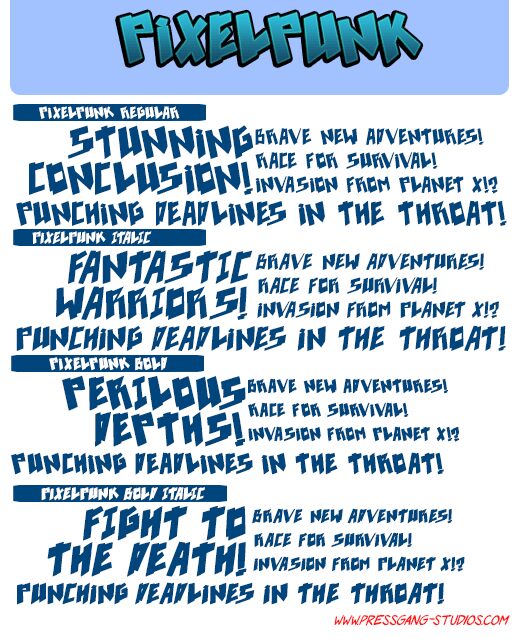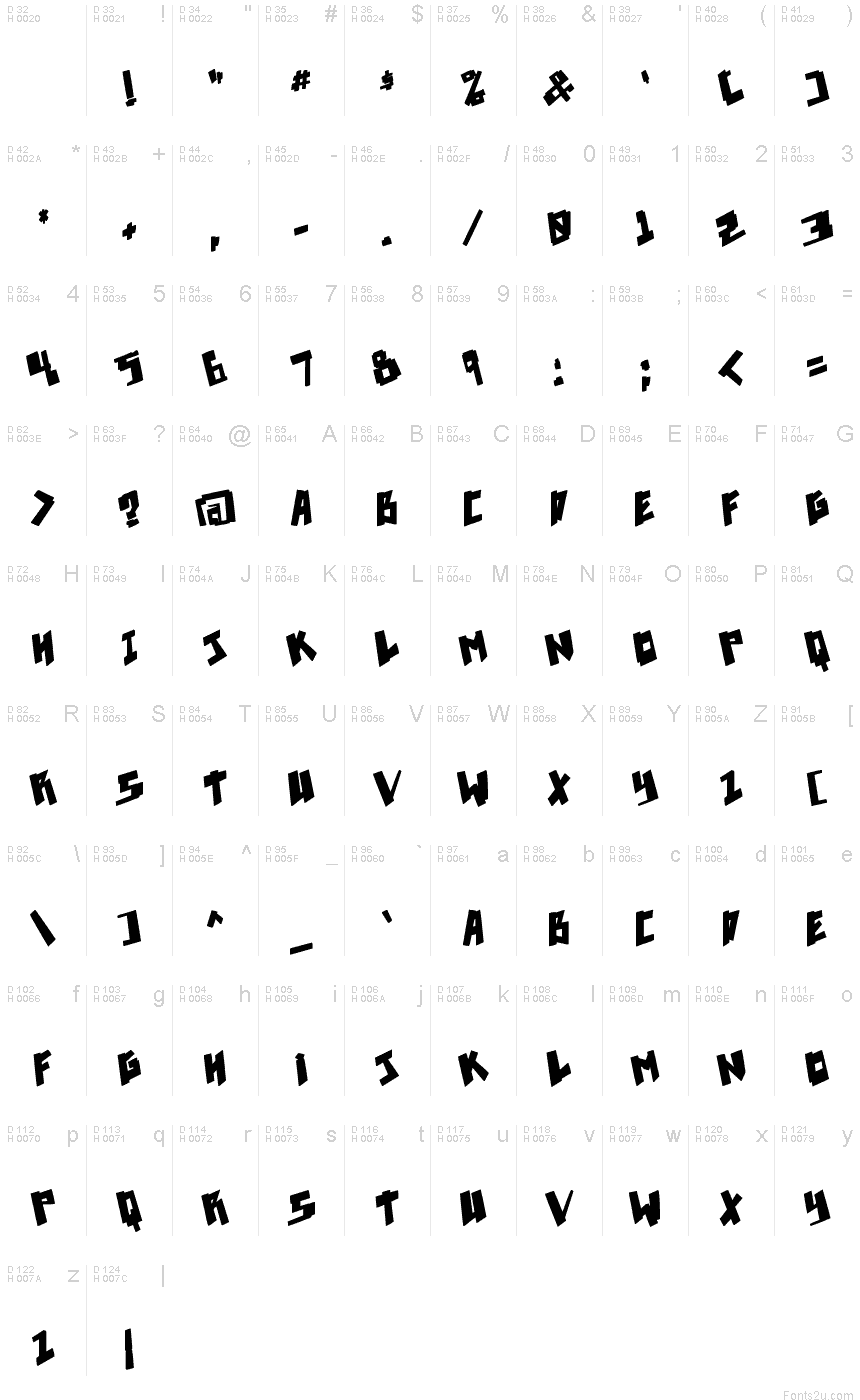
pixelpunk Bold Font
Pixelpunk Bold from Press Gang Studios is a free comic display font whose heavy, sharply cut letters form a rowdy, hand-made silhouette with tightly compressed, irregular spacing. Uneven angles keep the lettering lively and unpredictable.
Youth-oriented entertainment and street-culture projects are its clearest territory, especially game graphics, event posters, and music merchandise. Broad solid shapes and sudden notches recall torn paper or improvised signage, which fits the scrappy, rough humor of those projects. On snack packaging or children's publishing, the same lopsided construction can become part of a cartoon scene, linking each use through lettering that behaves almost like an illustration.